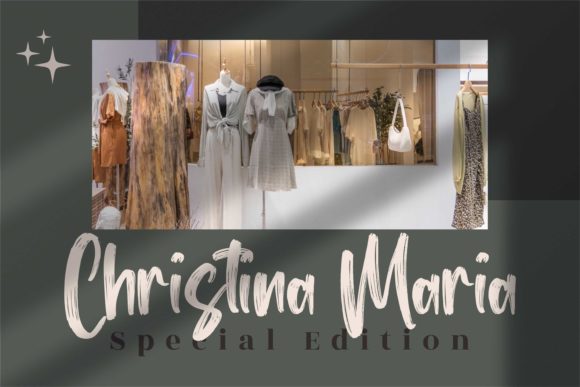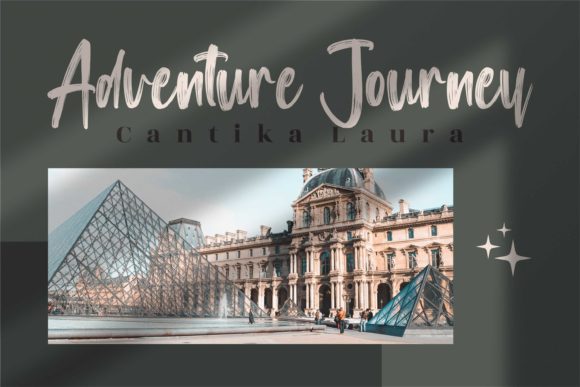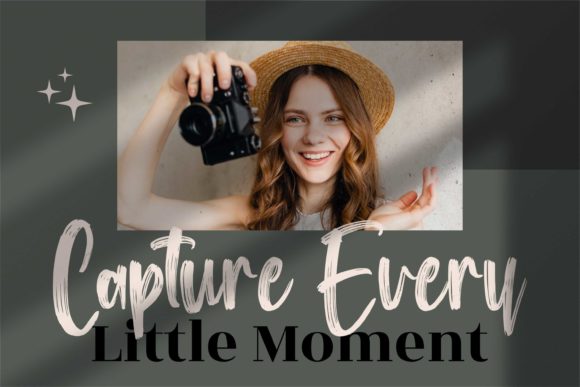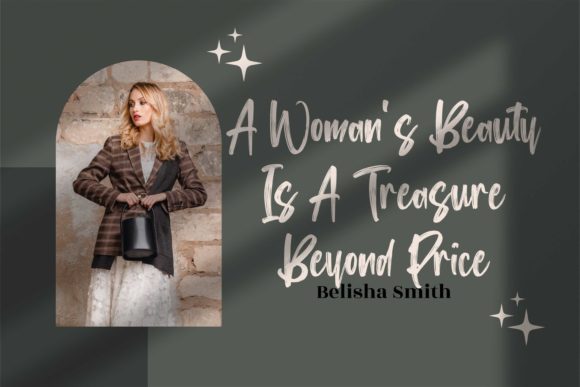
About Washington Lifestyle Font
Washington Lifestyle is a whimsical, brushed script font with a relaxed theme, featuring a lovely style. No matter the topic, this font will be an incredible asset to your fonts’ library, as it has the potential to elevate any creation.